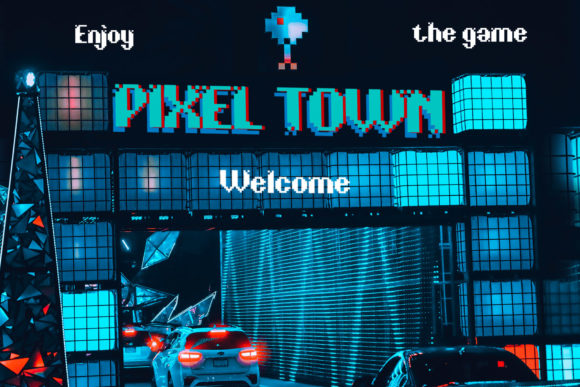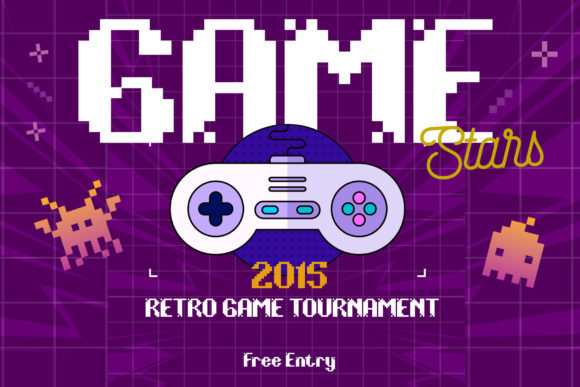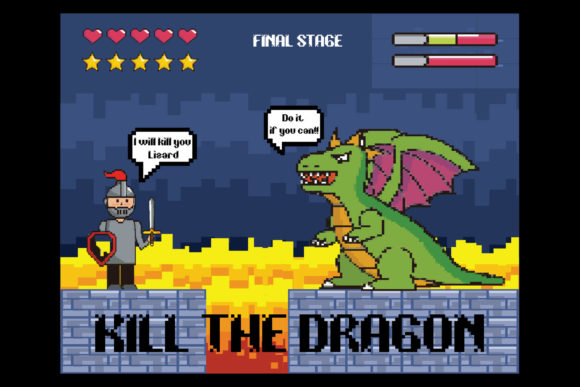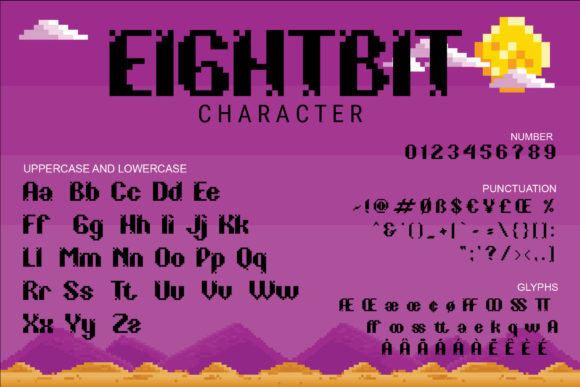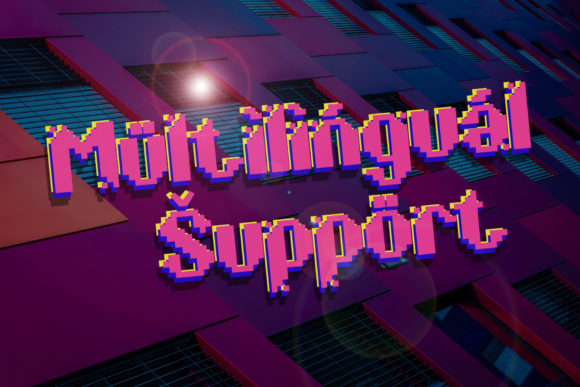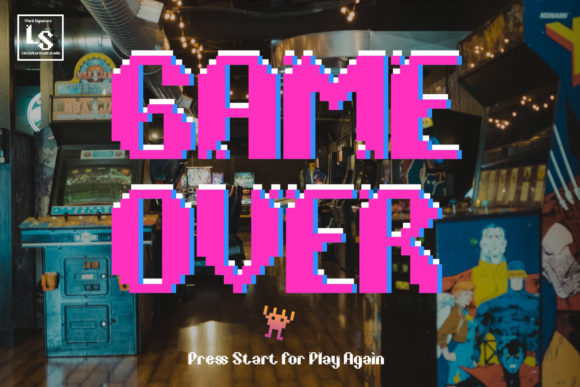
Introducing Eightbit Font: A Retro Gaming-Inspired Display Font
Are you a designer, gamer, or crafter looking to add a unique touch to your projects? Look no further than the Eightbit Font, a one-of-a-kind display font inspired by the nostalgic world of retro video games. In this article, we’ll dive into the world of Eightbit Font, exploring its features, benefits, and uses, as well as provide tips and tricks for incorporating it into your designs.
The Inspiration Behind Eightbit Font
Eightbit Font draws its inspiration from the vibrant and colorful world of retro video game poster designs. The font’s creator aimed to capture the essence of classic video games, transporting users back to an era of pixelated graphics, 8-bit soundtracks, and nostalgic fun. The result is a font that exudes a sense of playfulness, energy, and retro charm.
Key Features of Eightbit Font
So, what makes Eightbit Font so special? Here are some of its key features:
• Unique Display Font: Eightbit Font is a display font designed to grab attention and make a statement. Its bold, chunky design is perfect for headlines, titles, and other display text.
• Retro Gaming Inspiration: The font’s retro gaming inspiration gives it a distinctive look that’s sure to appeal to gamers, designers, and crafters alike.
• Highly Versatile: Eightbit Font can be used in a wide range of projects, from digital designs to print materials, and from posters to product packaging.
• Easy to Read: Despite its bold design, Eightbit Font is surprisingly easy to read, making it perfect for use in titles, headings, and other display text.
Benefits of Using Eightbit Font
So, why should you choose Eightbit Font for your next project? Here are some benefits to consider:
• Adds a Unique Touch: Eightbit Font’s retro gaming inspiration and bold design make it a great way to add a unique touch to your projects.
• Evokes Nostalgia: The font’s retro vibe is sure to evoke nostalgia in gamers and non-gamers alike, making it perfect for projects that aim to capture a sense of nostalgia or playfulness.
• Stand Out from the Crowd: Eightbit Font’s bold design ensures that your text will stand out from the crowd, making it perfect for use in titles, headings, and other display text.
Using Eightbit Font in Your Designs
So, how can you use Eightbit Font in your designs? Here are some tips and tricks to get you started:
• Pair with a Sans-Serif Font: Pair Eightbit Font with a clean sans-serif font, such as Arial or Helvetica, to create a striking contrast.
• Use for Headings and Titles: Eightbit Font is perfect for use in headings and titles, where its bold design can really make an impact.
• Experiment with Colors: The font’s retro inspiration lends itself well to bright, bold colors. Experiment with different color schemes to find the perfect combination for your project.
Eightbit Font in Crafting and DIY Projects
Eightbit Font isn’t just limited to digital designs. It can also be used in crafting and DIY projects, such as:
• Paper Crafting: Use Eightbit Font to add a touch of personality to your paper crafting projects, such as cards, invitations, and scrapbook pages.
• Sign Making: The font’s bold design makes it perfect for use in sign making, whether you’re creating a sign for a business, event, or DIY project.
• Product Packaging: Add a unique touch to your product packaging with Eightbit Font, which can be used to create eye-catching labels and packaging materials.
In conclusion, Eightbit Font is a unique and versatile display font that’s perfect for designers, gamers, and crafters looking to add a touch of retro gaming charm to their projects. With its bold design, retro inspiration, and ease of use, Eightbit Font is sure to become a favorite in your font collection. So why not give it a try and see how it can elevate your designs?